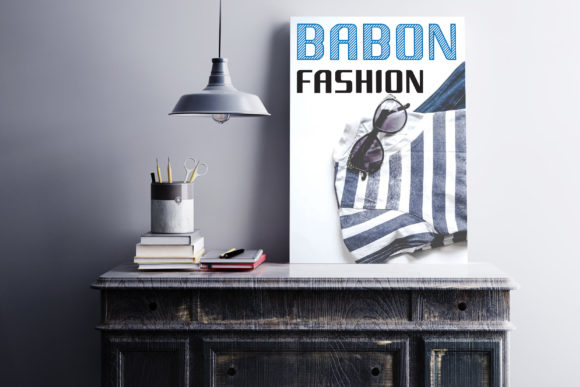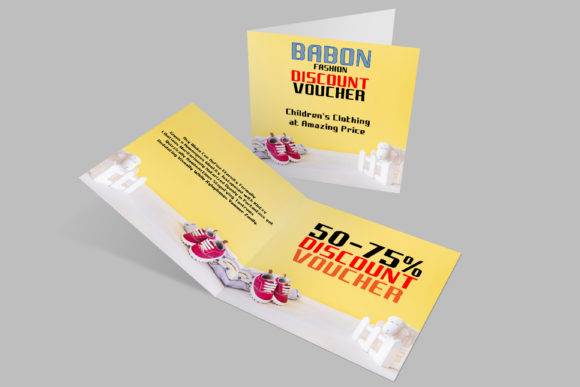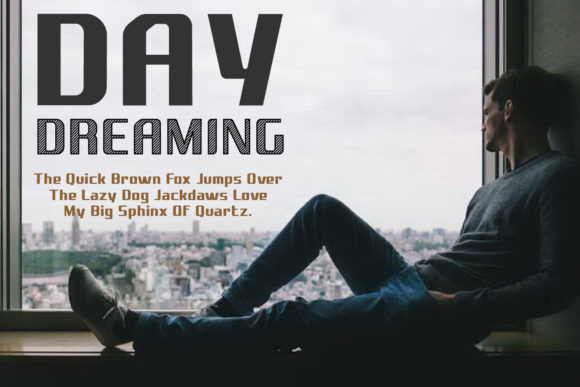
Gadhing Font: Elevate Your Designs with a Unique Sans Serif Style
Are you tired of using the same old fonts in your designs? Look no further than the Gadhing font, a fresh and exciting sans serif font that’s sure to take your creative projects to the next level. With its unique and interesting style, Gadhing is the perfect addition to any designer’s toolkit.
What is Gadhing Font?
Gadhing is a sans serif font that boasts a distinctive and modern aesthetic. Its clean lines, simple shapes, and clever use of negative space make it a versatile and highly legible font. Whether you’re working on a logo, brochure, website, or social media graphics, Gadhing is an excellent choice.
Key Features of Gadhing Font
- Unique and modern design: Gadhing’s sans serif style is both contemporary and stylish, making it perfect for designs that require a fresh and youthful feel.
- Highly legible: The font’s clear and simple design ensures that it remains readable even at small sizes, making it ideal for body text and captions.
- Versatile: Gadhing can be used for a wide range of projects, from branding and advertising to packaging and digital media.
- Easy to pair: The font’s neutral style makes it easy to pair with other fonts, allowing you to create harmonious and visually appealing typography.
How to Use Gadhing Font in Your Designs
So, how can you incorporate Gadhing into your designs? Here are a few ideas to get you started:
- Logos and branding: Use Gadhing as a primary font for your logo or as a secondary font to add texture and interest to your brand’s typography.
- Headings and titles: Take advantage of Gadhing’s bold and modern style to create eye-catching headings and titles for your website, blog, or marketing materials.
- Body text: Use Gadhing as a body text font for digital and print materials, such as e-books, brochures, and reports.
- Social media graphics: Add a touch of personality to your social media graphics with Gadhing’s unique and youthful style.
Tips for Pairing Gadhing Font with Other Fonts
While Gadhing is a versatile font that can stand alone, it’s often paired with other fonts to create visual interest and hierarchy. Here are some tips for pairing Gadhing with other fonts:
- Combine with a serif font: Pair Gadhing with a serif font, such as Georgia or Merriweather, to create a classic and sophisticated look.
- Match with a script font: Combine Gadhing with a script font, such as Pacifico or Great Vibes, to add a touch of elegance and whimsy.
- Use with a bold font: Pair Gadhing with a bold font, such as Arial Black or Impact, to create a striking contrast and add emphasis.
In conclusion, the Gadhing font is a unique and interesting sans serif font that’s perfect for designers and crafters looking to elevate their designs. With its modern aesthetic, high legibility, and versatility, Gadhing is an excellent addition to any creative project. So why not give it a try and see how it can make your designs stand out?